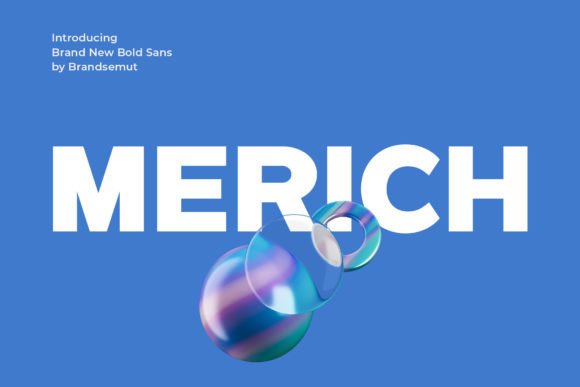
**Merich Font: A Symphony of Style for Your Modern Digital Palette**
In the ever-evolving realm of digital design, fonts hold the power to transform your creations into mesmerizing masterpieces. Merich Font, a sans-serif marvel from the renowned foundry BrandSemut, emerges as the perfect companion for your modern website, promising to elevate your digital presence with its captivating charm.
With its pristine letterforms and alluringly subtle curves, Merich Font seamlessly embodies the essence of contemporary aesthetics. Its clean lines and balanced proportions lend an air of sophistication, while the friendly warmth of its slightly rounded edges invites readers to delve into your content.
Merich Font boasts exceptional readability, ensuring that your messages are conveyed with utmost clarity and impact. Its uniform strokes and open letter spacing create a pleasing visual harmony, guiding the eyes effortlessly across your carefully crafted words.
Unlock the boundless possibilities of Merich Font and let your website blossom into a captivating digital haven. Its versatility extends from eye-catching headlines to informative body text, making it the perfect choice for a wide range of design applications.
Let Merich Font weave its magic into your branding, advertising, and digital media creations. Its modern and professional appeal will elevate your designs, leaving a lasting impression on your audience.
Experience the transformative power of Merich Font today and elevate your website to the realm of digital excellence. Its exceptional readability, captivating style, and versatility make it the perfect font for any modern design project.